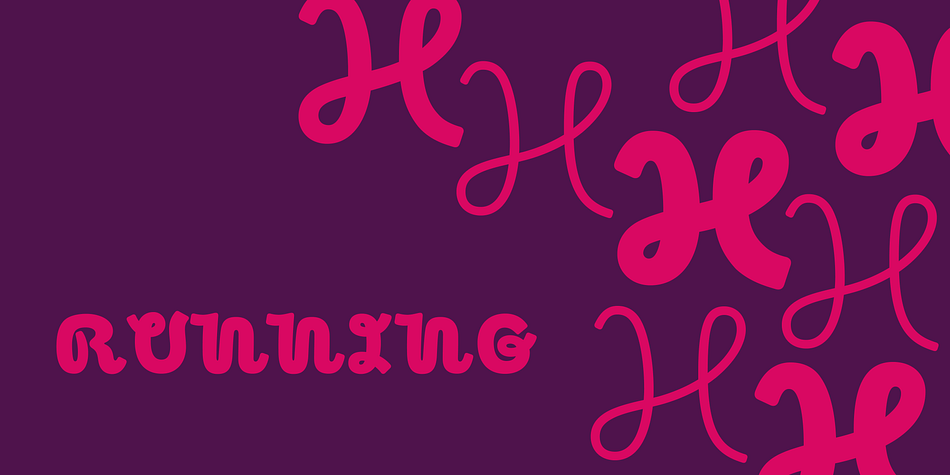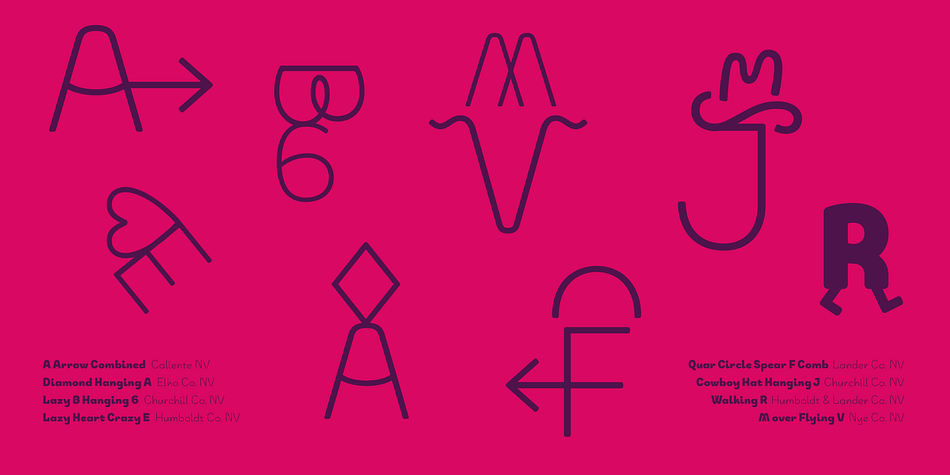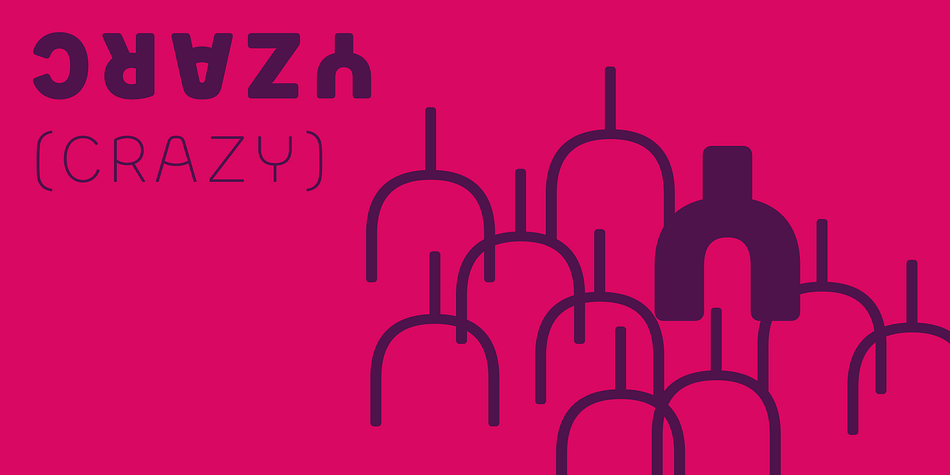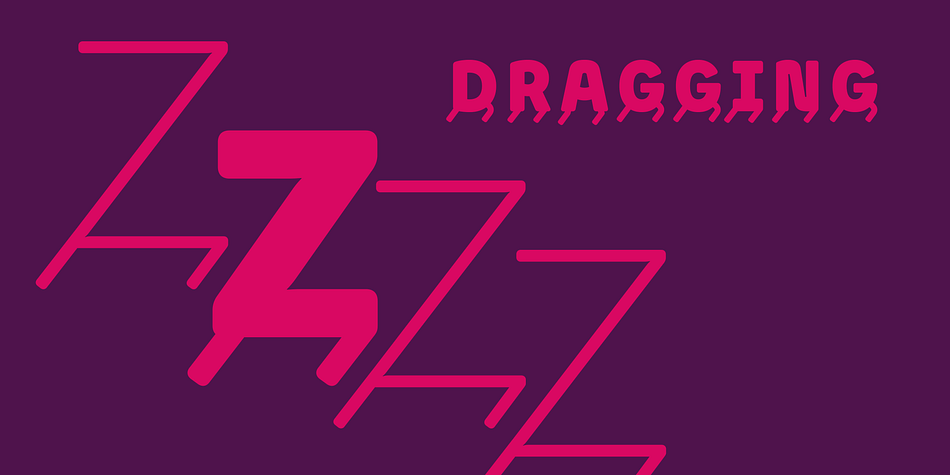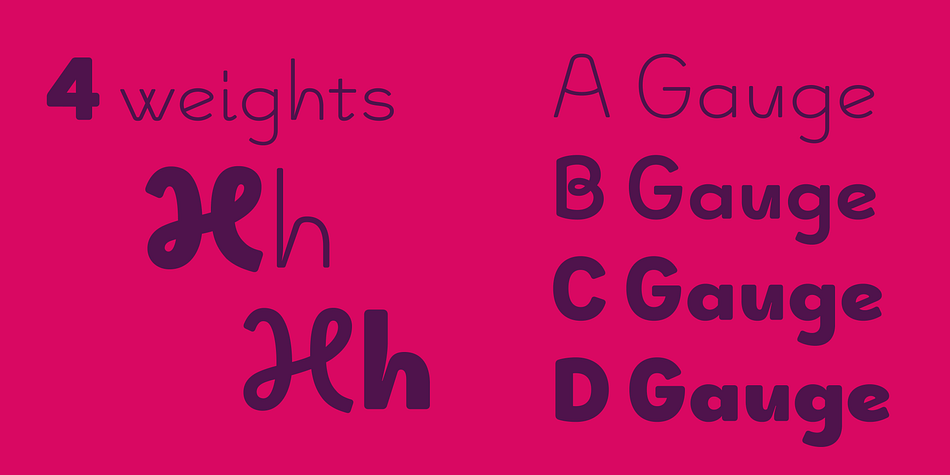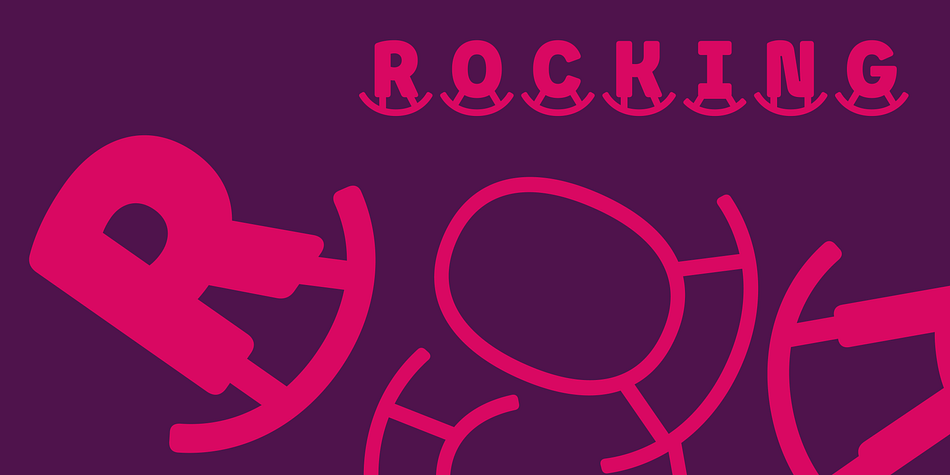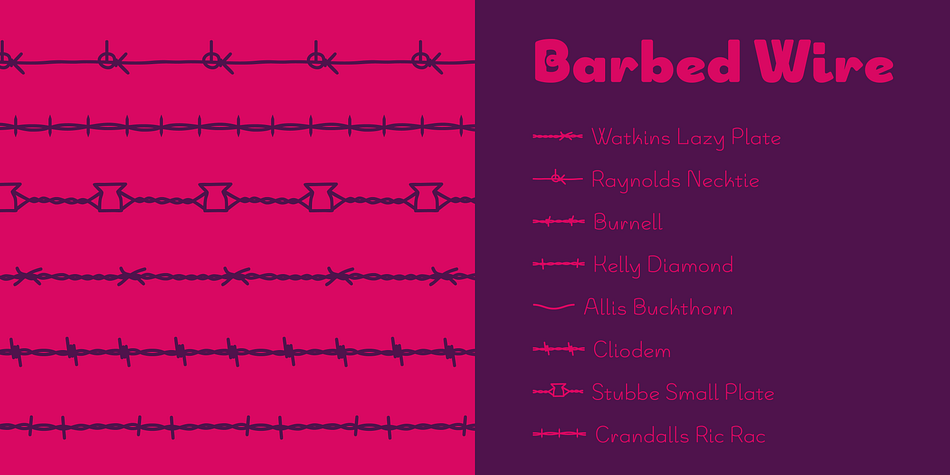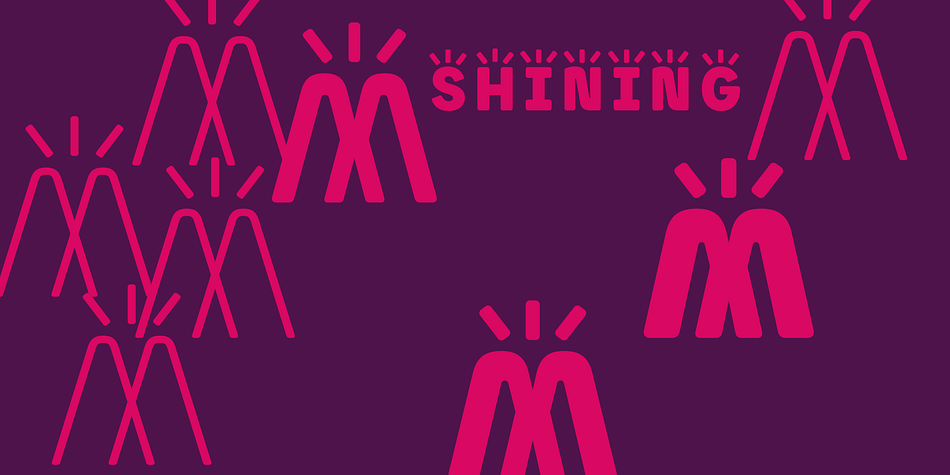
Ranchstyle
Designed by Rod Cavazos, Ranchstyle is a display sans and dingbat font family. This typeface has five styles and was published by Ampersand Type Foundry.
My interest in the visual language of livestock branding began when I arrived in Reno, Nevada in 2017 while starting a Graphic Design Program at University of Nevada, Reno as an Assistant Professor. After walking by an old cattle brand hanging in an antique shop in downtown Reno, I wanted to find out more about the history of cattle brands, including the meaning behind the letterforms and iconography. Research began at The Nevada Historical Society and a visit to UNR’s School of Agriculture collection of branding iron artifacts captivated me to deepen my research on the subject.
In designing a font and symbol system based on this visual standard—as best codified in publications like the Nevada Brand Book (original dated 1924)—I opted for a style that was unique and contemporary. Ranchstyle takes the vernacular from cattle rancher’s brands of the old west, digitizes it, and brings it into the contemporary world as a vivacious spunky typeface. The letterforms mimic bent metal and have the fluidity that follows such a material.